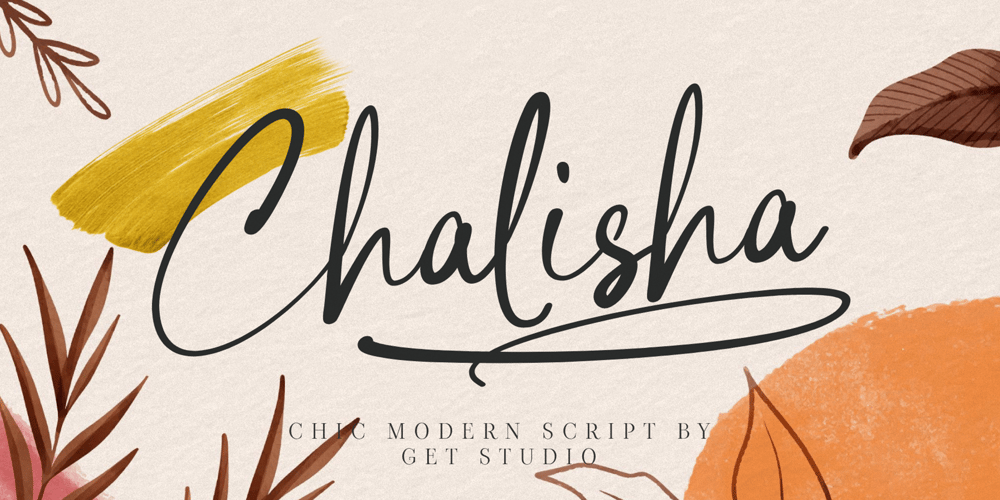
Chalisha Font Family was designed by Hermansyah and published by Get Studio. Chalisha contains 1 styles and family package options. Chalisha is a chic modern script font that flows smoothly and elegantly on any design you make, a must-have to add to your chic modern script collection. Best choice for logo, album covers, quotes, greeting cards, book covers, wedding design, social media posts, and much more.Chalisha has a full set of uppercase and lowercase letters, numerals, punctuation, and OpenType features such as ligatures and beautiful swashes.